Citizens of the Internet, welcome. Fonts in Linux are a rather neglected topic; there are things with a higher delight factor we could talk about, discuss, test, and indeed, write. But fonts be probably one of the most important elements of modern computing. Because we spend countless hours staring at monitors, and the precision of displayed information affects our productivity, health, mood, and ability to remain in front of a screen.
It’s not all about fonts, but then, it is. Types of displays, pixel density, color calibration, screen resolution, lighting, viewing distance, and many other factors affect how we experience text before us. But for any given hardware and setup, there’s a drastic variation among operating systems. Windows and Linux. And then, each distro has its own way of showing text. We talked about this in my songesque-titled article, and one of the things I mentioned was the inferiority of Fedora fonts compared to Ubuntu. I want to focus on this claim some more today, and eventually, give you better fonts. Let’s do-oo-oo-oo it.
Fedora font saga
If you search online for “Fedora + fonts”, you will get a big handful of results, telling how you can improve the quality of fonts in this particular distro. The regular suggestions revolve around three main topics: 1) Infinality fonts, which have recently been deprecated, to the best of my knowledge 2) the use of different hinting and anti-aliasing options, which in my mind, show no difference 3) Microsoft fonts.
I tried all these, and I also paid lots of attention to the Cantarell family of fonts, which have been introduced in Fedora 24, and which do improve the basic quality of rendered text in Fedora. However, they only partially address the gap. After several hours of work in front of a Fedora, be it the 24th or 25th edition, my eyes begin to hurt. This does not happen on the same laptop – Lenovo G50 – with either the default Windows installation, or even the Ubuntu instance.
So we need something else.
Ubuntu fonts
This may sounds radical, but I decided to see whether Fedora can tolerate – or even actually look good – if I plaster the Ubuntu font family onto it. The fonts are available for free from font.ubuntu.com, and they come in an archive, ready for use. The setup is relatively trivial, but for the sake of this article, let me elaborate a little more then.
Cantarell vs Ubuntu fonts
Now, the combat test. I decided to change the system fonts completely, to see if this make the distro more palatable for extended viewing. More importantly, I created two LibreOffice documents and filled them with Lorem Ipsum text, and then had one document use the default Fedora Cantarell fonts, size 12, and the other use regular-weight Ubuntu fonts, same number of points.
System wide, I felt an immediate, positive improvements. The fonts just look sharper, the clarity is better, and if I’m not mistaken, the fonts are also darker, so you also have a better contrast separation, which can help with extended reading. I tested this both under sunlight – natural daylight, coming from a side window, no direct glare – and also under artificial lighting in the evening hours, where there are three diffuse sources, all fluorescent cool white. I was quite pleased, right away. Once again, tweaking the anti-aliasing and hinting settings made no difference whatsoever.
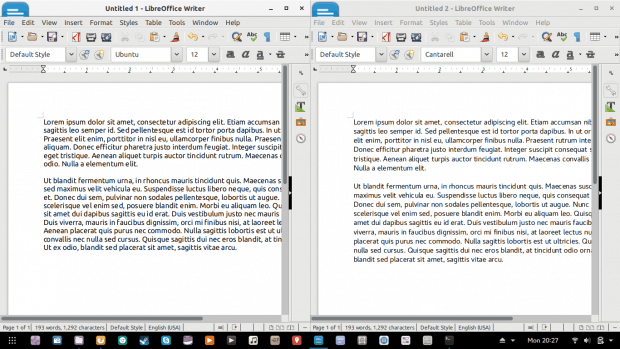
Comparison between default Fedora fonts – Cantarell (right) and Ubuntu fonts (left), default line spacing.
The LibreOffice comparison test shows the results even more vividly. You can definitely see a stark difference in how the text is displayed. Cantarell is a paler font, with wider character, word and line spacing, which can make reading more difficult. Ubuntu is more rounded and condensed, and with the default line spacing, Ubuntu may feel a little crowded.
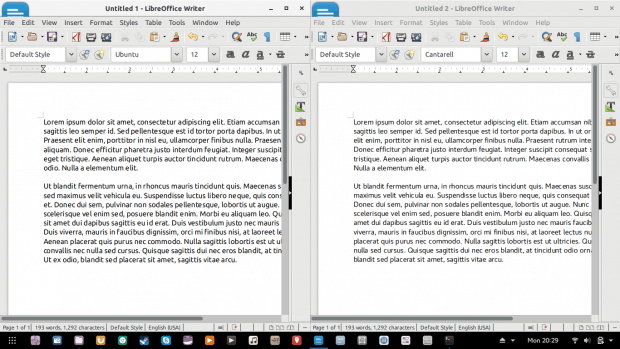
Comparison between default Fedora fonts – Cantarell (right) and Ubuntu fonts (left), 110% line spacing.
I then adjusted the line spacing of the Ubuntu family font to be 110% of the original, and this aligned the text to a pretty much identical vertical setup like Cantarell. This further improved the viewability of the Ubuntu family compared to the Fedora default. Not to be blinded by my own taste, I shared my results with the few, select few, happy few, band of bro – I mean friends and family, and while they were split on which family is more superior with the default line spacing, in the equi-distant vertical positioning scenario, Ubuntu won hands down. At this point, the too-liberal spacing of characters and words in the Cantarell family and its less prominent contrast started to show their weak points, making for much harder reading, and consequently, more eye wear within a shorter period of time.